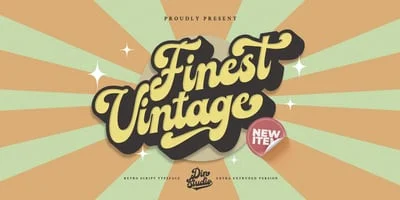
Finest Vintage Font
The Finest Vintage Font excels in various design applications including premium vintage wine labels, distinguished antique shop branding, classic automobile marketing, heritage luxury brand identities, timeless fashion boutique signage, elegant retro restaurant communications, sophisticated vintage wedding materials, classic collector item packaging, distinguished historical society publications, and refined nostalgic projects that demand vintage excellence and classic sophistication.
What makes the Finest Vintage Font exciting is its exceptional embodiment of timeless quality and classic refinement through letterforms that capture the essence of bygone elegance and the enduring appeal of vintage craftsmanship. This typeface demonstrates remarkable sophistication through carefully crafted characters that suggest the meticulous attention to detail of vintage artisans, the refined taste of classic eras, and the timeless quality that makes vintage items eternally desirable. The font's vintage personality makes it perfect for luxury brands and heritage organizations seeking to communicate timeless excellence, classic sophistication, and the kind of enduring quality that appreciates with age through typography that literally embodies the finest traditions of vintage design.
The Finest Vintage Font family typically includes distinguished weight variations that preserve classic proportions, featuring elegant italic styles with period-appropriate flourishes and vintage decorative elements. These family options often include classic alternates with enhanced vintage characteristics, traditional ligatures, and sophisticated ornaments that provide designers with comprehensive tools for creating authentically vintage typography that celebrates timeless design while maintaining contemporary accessibility and luxury market appeal.
Luxury brand professionals and vintage collectors consistently select Finest Vintage Font for projects requiring typography that communicates classic excellence and vintage sophistication. This typeface delivers exceptional performance in luxury marketing, heritage branding, and vintage communications where establishing timeless appeal and demonstrating appreciation for classic quality is essential for discerning clientele. The font's vintage character makes it particularly effective for wine and collector applications. Download Finest Vintage Font today to access this distinguished typeface that transforms luxury communications with its vintage elegance and classic sophistication, creating compelling heritage experiences that honor the finest traditions of vintage craftsmanship while celebrating the timeless appeal that makes classic design eternally valuable and genuinely sophisticated.